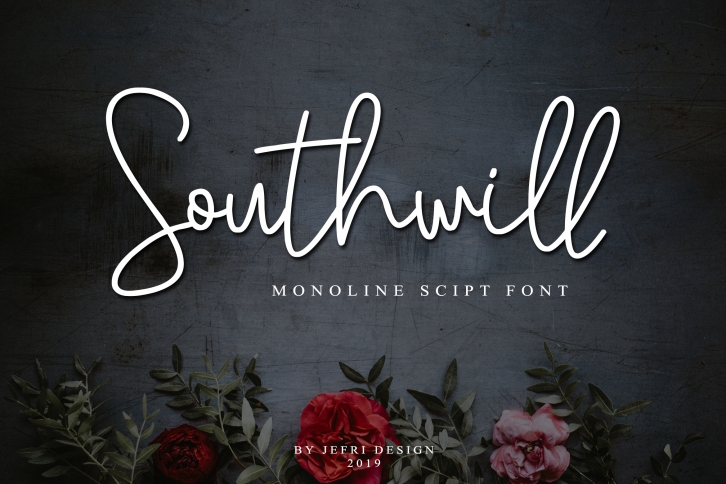
Southwill Monoline Script is a great font that was designed by Bluestype Studio. Imagine the amount of combinations you can create using this font! The archive is 20.26 MB and it was released on October 20, 2019. Southwill Monoline Script looks beautiful on wedding invitations, greeting cards, logos, posters, labels, t-shirt designs, logos, business cards and is perfect for use in ink or watercolor works, fashion, magazines, packaging and food menus, children's books and more!